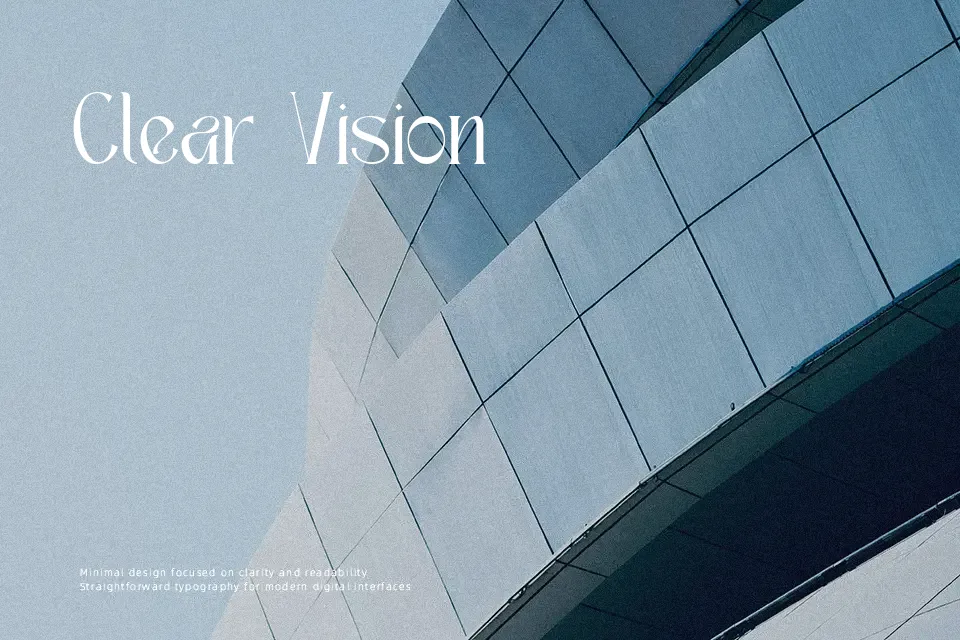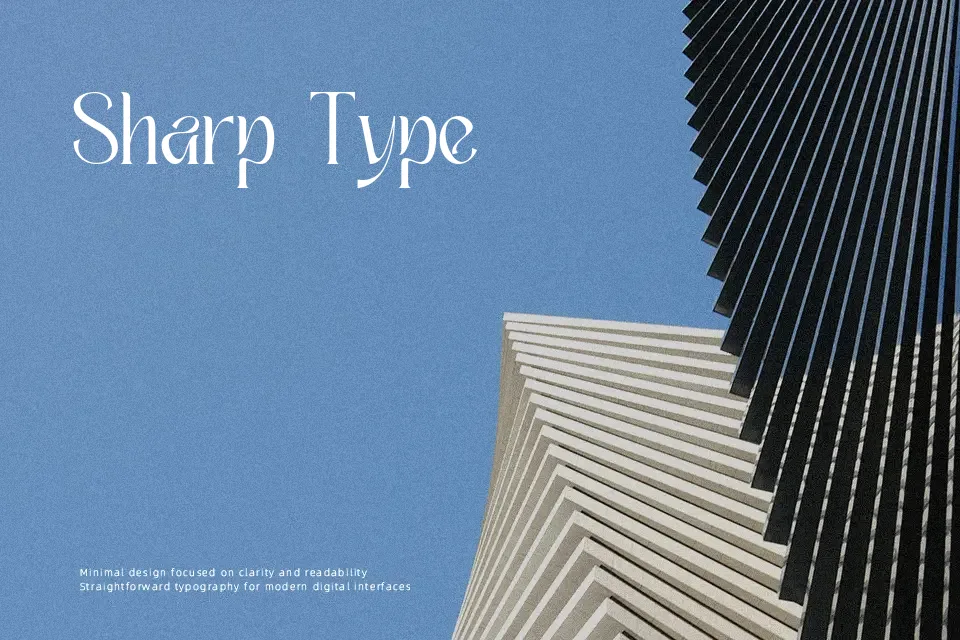
Prochely Font
A refined cosmetic label or wedding invitation headline immediately benefits from the elegant structures found in Prochely Font. This modern display serif relies on balanced stroke contrast and smooth, sophisticated curves to create a distinctly artistic rhythm. The letterforms feature carefully proportioned character widths and comfortable spacing, ensuring strong legibility in medium to large display text. The spacing helps maintain clarity in larger headlines, giving designers flexibility in layout construction. While its bohemian motives add character to branding and stationery, these decorative details become less effective at smaller sizes. Dense paragraphs or small interface labels should be avoided, as the nuanced stroke transitions require ample canvas space to remain readable.
Best For: wedding invitation headlines, cosmetic branding logos, boutique packaging design, fashion editorial titles
Not Ideal For: long paragraph text, small interface labels, dense corporate reports, technical manuals